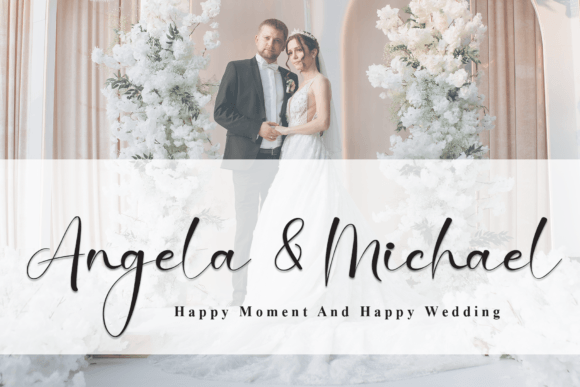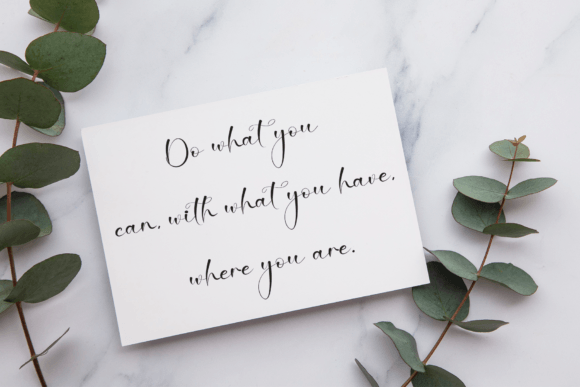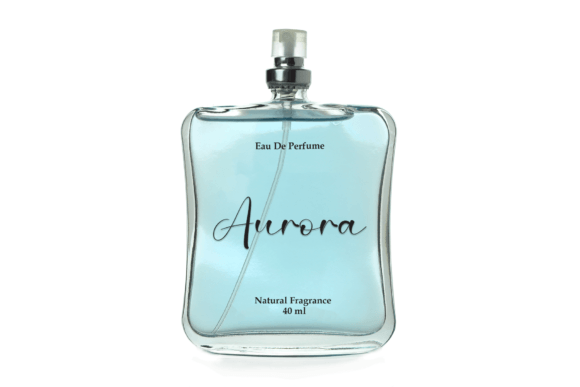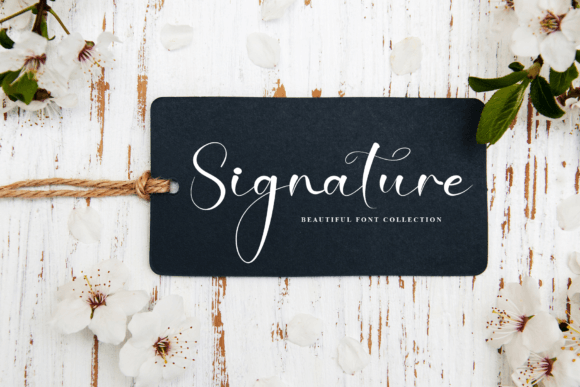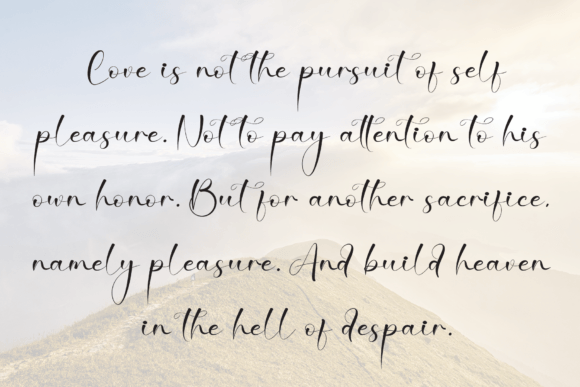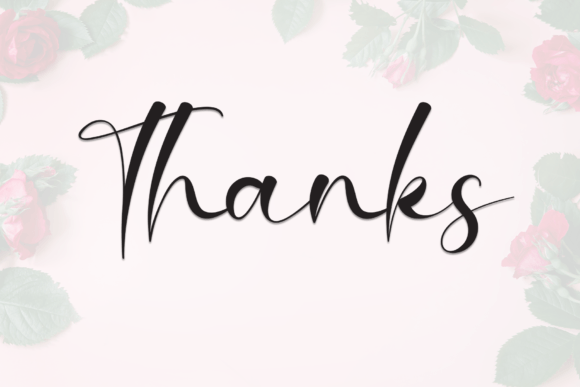
Introducing Flower Roselya Font: The Sweet and Friendly Handwritten Font for Your Creative Projects
Are you a designer, crafter, or DIY enthusiast looking for a font that can add a personal touch to your projects? Look no further than Flower Roselya Font, a sweet and friendly handwritten font that’s perfect for a wide range of designs. With its natural and unique style, Flower Roselya Font is incredibly versatile and can be used for various creative projects, from digital designs to handmade crafts.
What Makes Flower Roselya Font Special?
Flower Roselya Font is a one-of-a-kind handwritten font that’s designed to bring a touch of warmth and personality to your designs. Its sweet and friendly style makes it perfect for projects that require a personal and approachable feel, such as:
- Digital designs: Use Flower Roselya Font to create stunning digital art, social media graphics, and blog posts that stand out from the crowd.
- Handmade crafts: Add a personal touch to your handmade crafts, such as cards, gift tags, and scrapbook pages, with this beautiful handwritten font.
- Branding and packaging: Use Flower Roselya Font to create unique and eye-catching branding and packaging designs that reflect your brand’s personality.
The Possibilities are Endless with Flower Roselya Font
The only limit to using Flower Roselya Font is your imagination! With its natural and unique style, you can create a wide range of designs that showcase your creativity and personality. Here are some ideas to get you started:
- Create stunning floral designs, perfect for spring and summer projects.
- Design beautiful wedding stationery, such as invitations and thank-you cards.
- Make adorable children’s party decorations and party favors.
- Develop unique and eye-catching social media graphics and blog posts.
Why Choose Flower Roselya Font?
There are many fonts available, but Flower Roselya Font stands out from the rest due to its:
- Unique and natural style: Flower Roselya Font has a distinctive handwritten style that’s both sweet and friendly.
- Versatility: This font can be used for a wide range of designs, from digital designs to handmade crafts.
- Easy to read: Despite its handwritten style, Flower Roselya Font is easy to read and understand, making it perfect for body text and headlines.
Flower Roselya Font is a sweet and friendly handwritten font that’s perfect for designers, crafters, and DIY enthusiasts. With its natural and unique style, this font is incredibly versatile and can be used for a wide range of creative projects. Whether you’re looking to create digital designs, handmade crafts, or branding and packaging, Flower Roselya Font is the perfect choice. So why wait? Get creative with Flower Roselya Font today and see what amazing designs you can come up with!